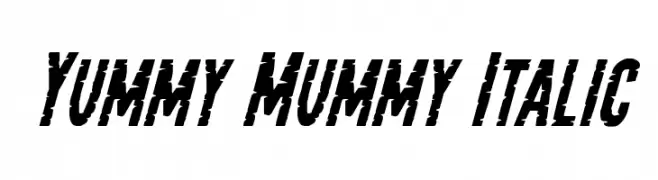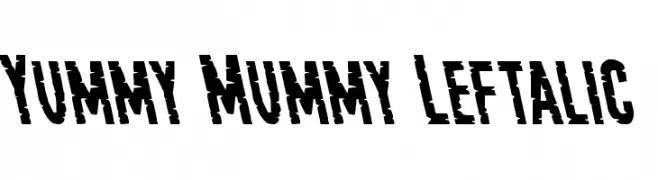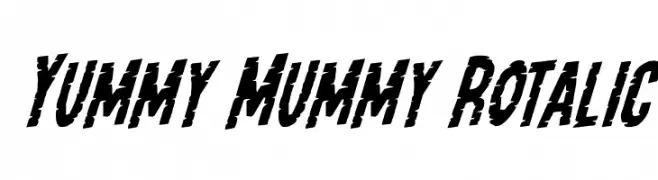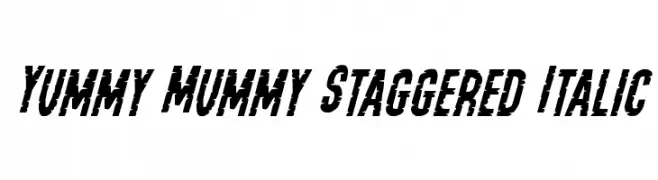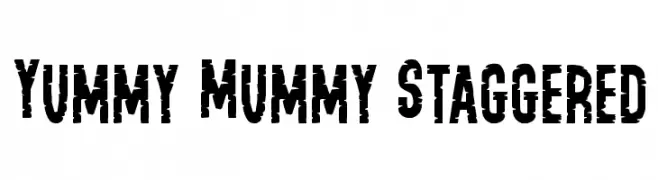
A bold, distressed font with a rugged, grunge-like appearance.
A bold, expanded, and italic font with a dynamic and edgy style.
A bold, distressed font with a rugged, grunge-like appearance and expanded width.
A bold, italic, extra expanded font with a jagged texture.
A bold, italic font with a rough, textured style and dynamic energy.
Bold, distressed font with a dynamic, slanted style.
A bold, distressed font with a slanted, dynamic style.
A bold, distressed font with a dynamic and rugged appearance.
A bold, distressed font with a rugged, staggered appearance.
A bold, staggered italic font with a dynamic, distressed style.